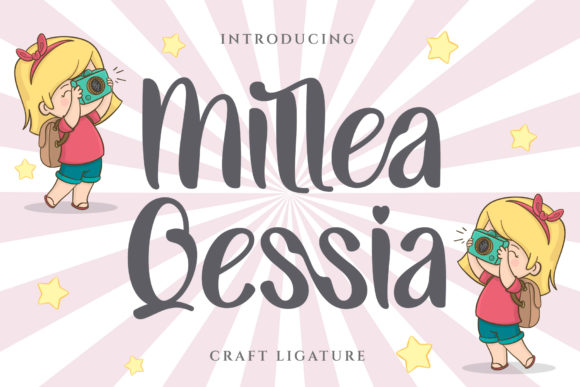
Welcome to the captivating realm of Millea Qessia, a whimsical display font designed to ignite creativity and elevate your designs to extraordinary heights.
Picture this: your child's birthday invitation adorned with Millea Qessia's jubilant characters, exuding an aura of unrestrained joy and anticipation. Its playful curves and expressive swashes will transport guests into a world of imagination and enchantment.
But wait, there's more! Millea Qessia's versatility extends far beyond invitations. Its playful spirit lends itself effortlessly to posters, social media graphics, and branding projects, promising to infuse each creation with a touch of magic.
Let your imagination take flight as you weave enchanting stories with Millea Qessia. Its vibrant charm will captivate audiences of all ages, leaving a lasting impression that sparks joy and inspires wonder.
So, why settle for ordinary when you can embrace the extraordinary? Dive into the whimsical world of Millea Qessia today and unleash the power of creativity!